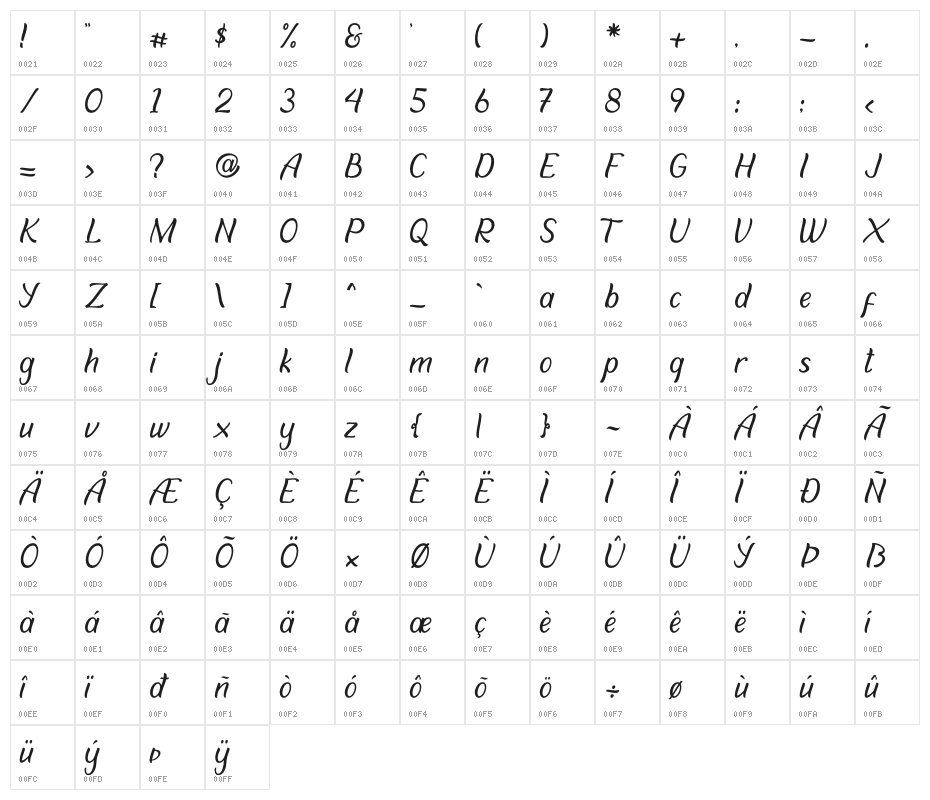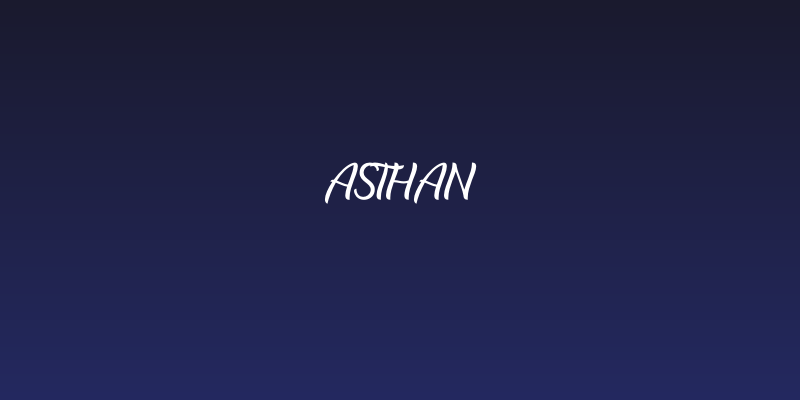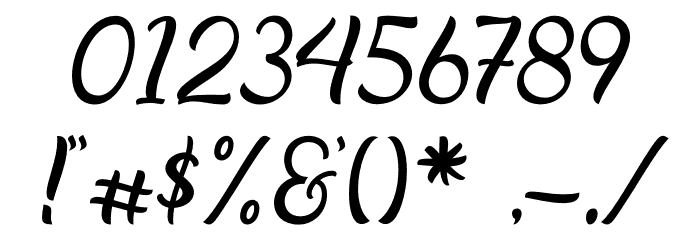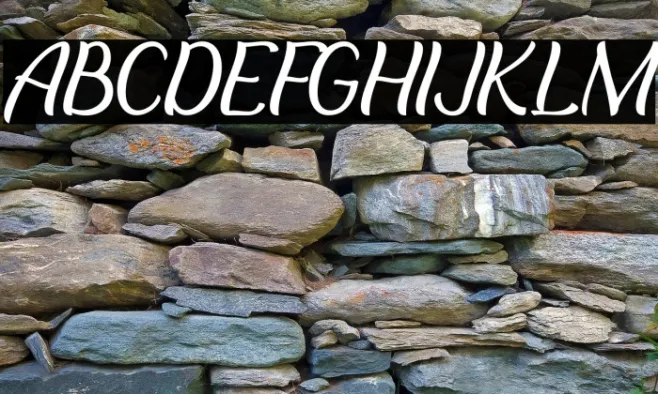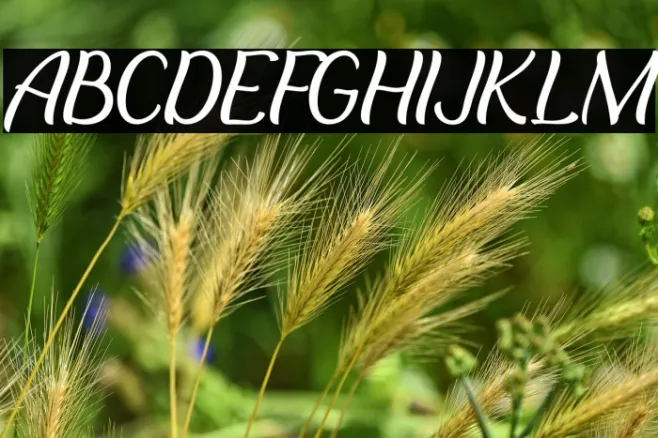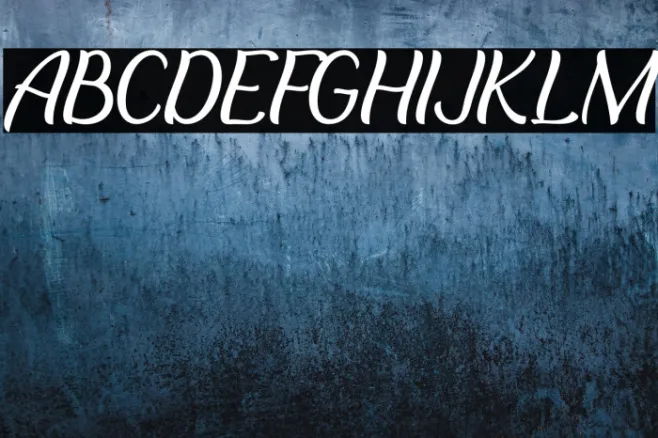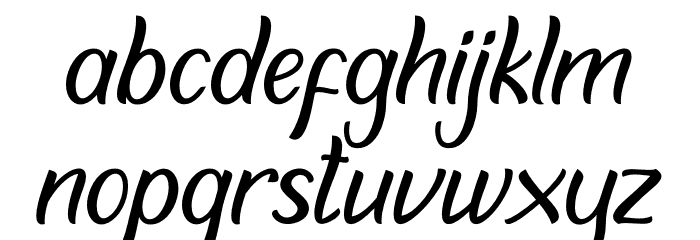
Asthan Font
Asthan Description
This font features a dynamic and flowing script style, characterized by its elegant, cursive letterforms that convey a sense of movement and grace. The uppercase letters are bold and slightly slanted, with smooth curves and a consistent stroke width that enhances readability. The lowercase letters maintain the same fluidity, with some letters extending below the baseline, adding to the font's charm. The numerals are well-proportioned, aligning seamlessly with the overall aesthetic. Special characters are thoughtfully designed, ensuring they complement the alphabetic characters. This font's design is both sophisticated and approachable, making it suitable for a variety of applications.